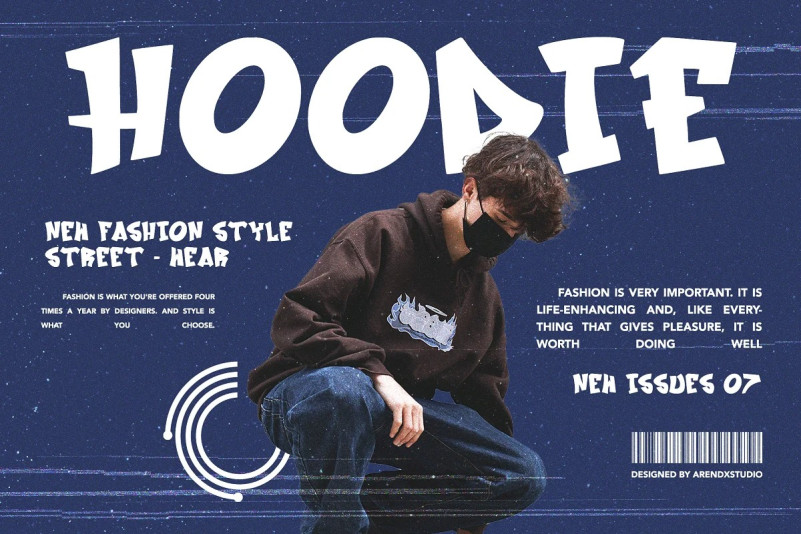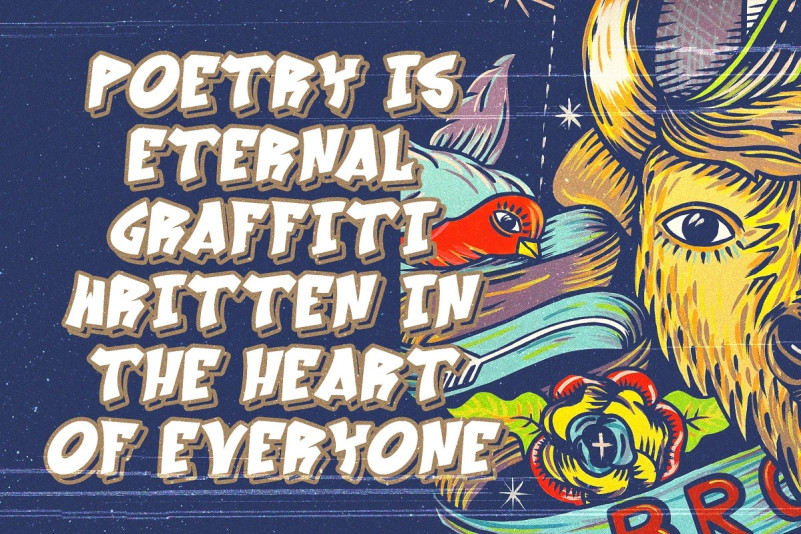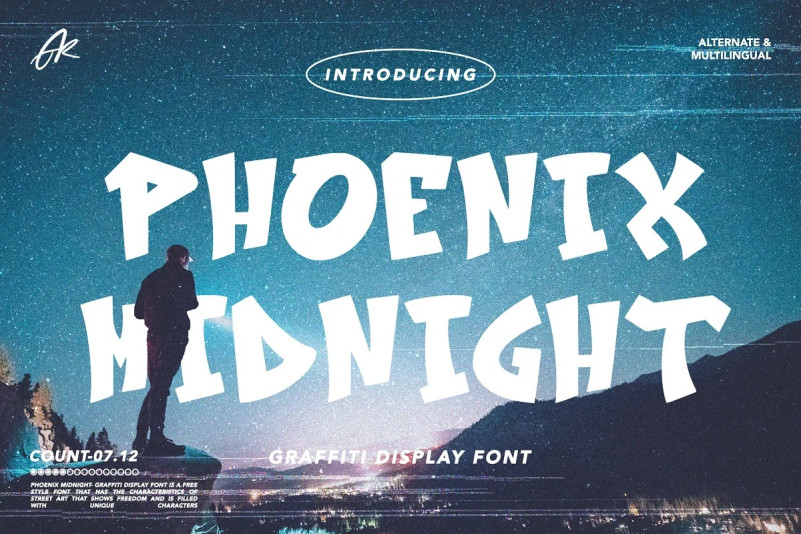
Phoenix Midnight Font
Phoenix Midnight – Graffiti Display Font is a free style font that has the characteristics of street art that shows freedom and is filled with unique characters